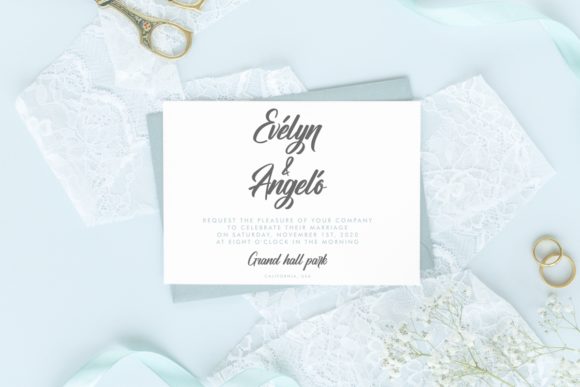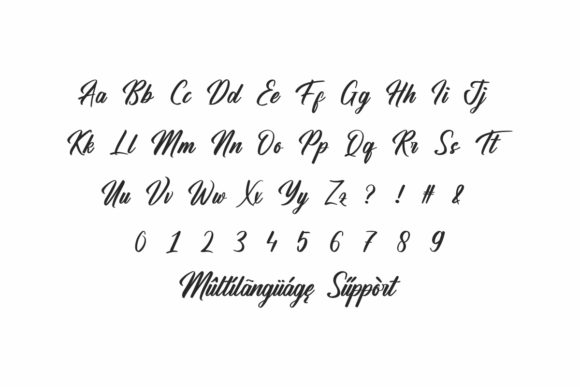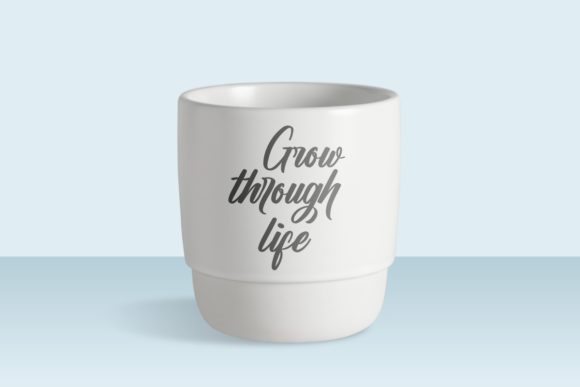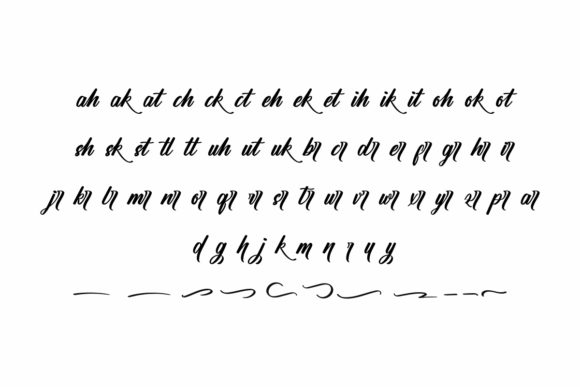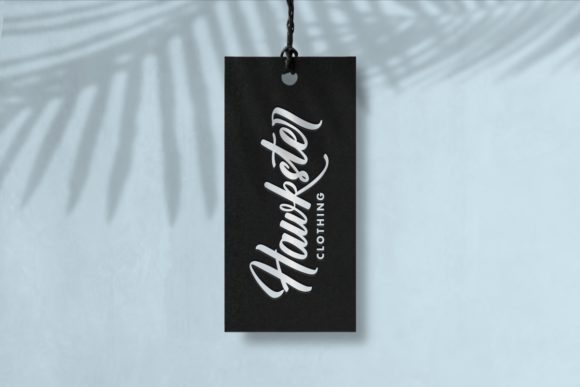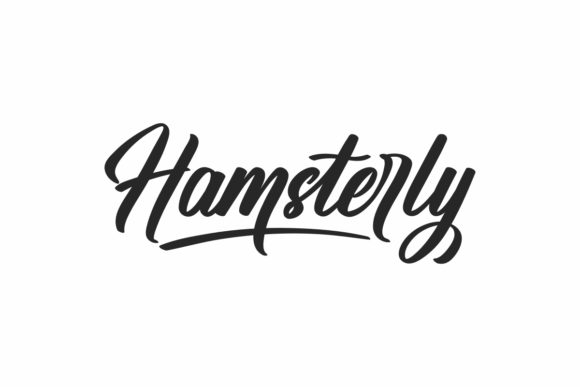
Introducing Hamsterly Font: Elevate Your Designs with Elegance and Flair
Are you on the hunt for a font that exudes elegance and sophistication? Look no further than Hamsterly Font, a stunning handwritten script that is sure to take your designs to the next level. With its flowing lines and beautiful swashes, Hamsterly is the perfect choice for designers and crafters looking to add a touch of luxury to their work.
What Makes Hamsterly Font So Special?
Hamsterly Font is an elegant and flowing handwritten font that boasts a unique and distinctive style. Its elegant lines and curves make it perfect for use in a variety of contexts, from busy backgrounds to standalone headlines. Whether you’re working on a branding project, a wedding invitation, or a craft project, Hamsterly is sure to make a statement.
Key Features of Hamsterly Font
• Elegant and Flowing Design: Hamsterly Font features a beautiful, flowing script that is sure to add a touch of elegance to any design.
• PUA Encoded: This font is PUA encoded, making it easy to access all of the glyphs and swashes with ease.
• Multipurpose: Hamsterly Font is perfect for use in a variety of contexts, from busy backgrounds to standalone headlines.
Why Choose Hamsterly Font?
So why choose Hamsterly Font over other fonts on the market? For starters, its unique and elegant design sets it apart from more traditional fonts. Additionally, its PUA encoding makes it easy to access all of the glyphs and swashes, allowing you to customize your designs with ease. Plus, with its multipurpose design, you can use Hamsterly Font in a variety of contexts, from digital designs to print projects.
Hamsterly Font is perfect for designers and crafters looking to add a touch of elegance and sophistication to their work. Whether you’re working on a branding project, a wedding invitation, or a craft project, Hamsterly Font is sure to make a statement. With its easy-to-use design and PUA encoding, you can quickly and easily create beautiful designs that are sure to impress.
Tips for Using Hamsterly Font
• Experiment with Different Sizes: Try using Hamsterly Font in different sizes to see how it looks in various contexts.
• Play with Swashes: With its PUA encoding, you can easily access all of the glyphs and swashes to add a personal touch to your designs.
• Pair with Other Fonts: Try pairing Hamsterly Font with other fonts to create a unique and eye-catching design.
In conclusion, Hamsterly Font is a beautiful and elegant handwritten font that is sure to elevate your designs to the next level. With its flowing lines, PUA encoding, and multipurpose design, it’s perfect for designers and crafters looking to add a touch of luxury to their work. So why wait? Download Hamsterly Font today and start creating stunning designs that are sure to impress!